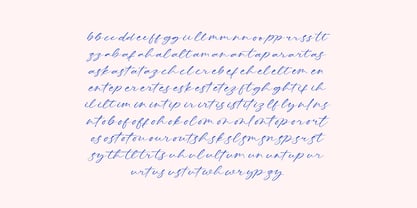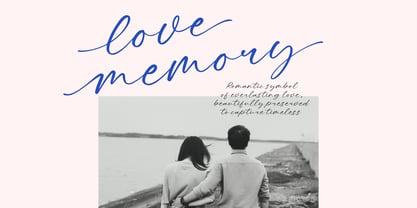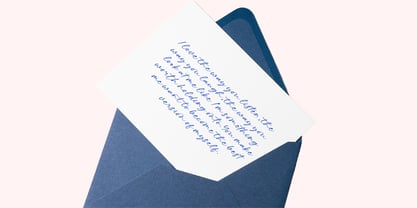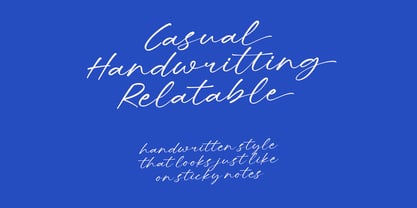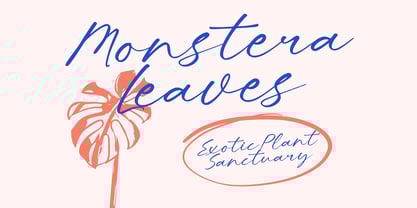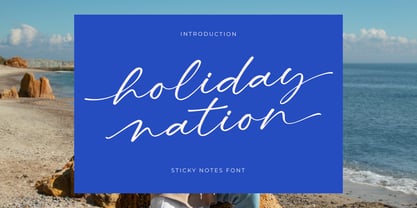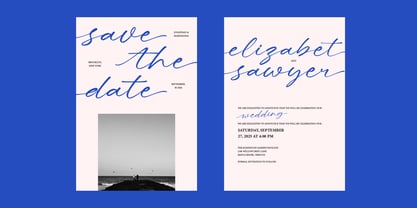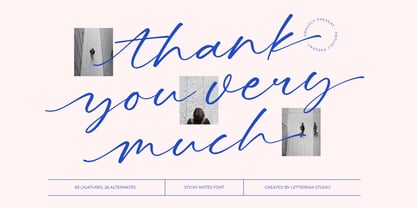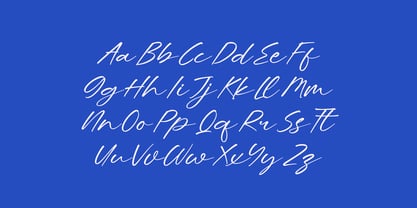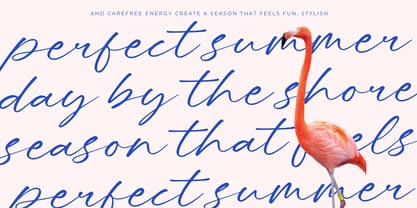
Blushing Touch
by Letterena Studios
The Blushing Touch Font Family was designed by Heru Utama Putra and published by Letterena Studios. Blushing Touch contains 2 styles and family package options.
Letters Blushing Touch is a delicate handwritten script inspired by natural pen strokes and soft personal notes. Its elegant flow, long swashes, and smooth curves create an intimate handwritten feel perfect for branding, stationery, quotes, lifestyle visuals, and editorial layouts. With 83 ligatures and 26 alternates, this font gives designers flexibility to create authentic, expressive lettering with seamless connections and refined charm.